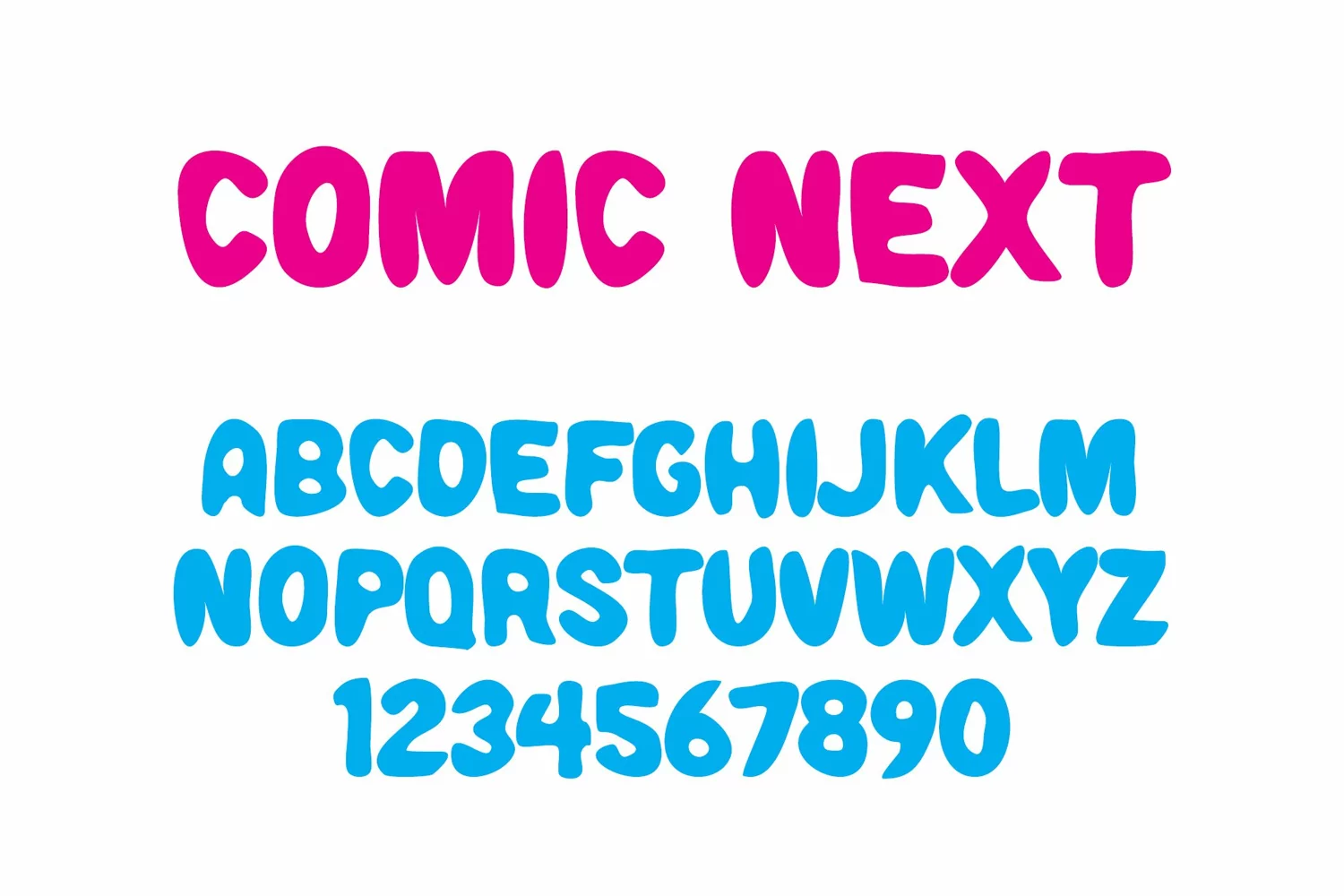
Comic Next is comical All-Caps sans serif font.
Excellent for creating fun cartoon casual look and feel.
Great for comics, children illustrations books, packaging, invitations, T-shirts and more.